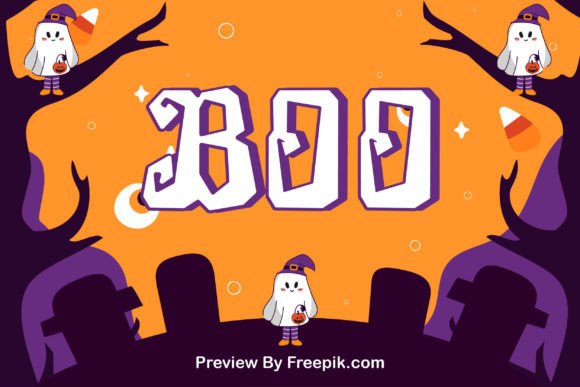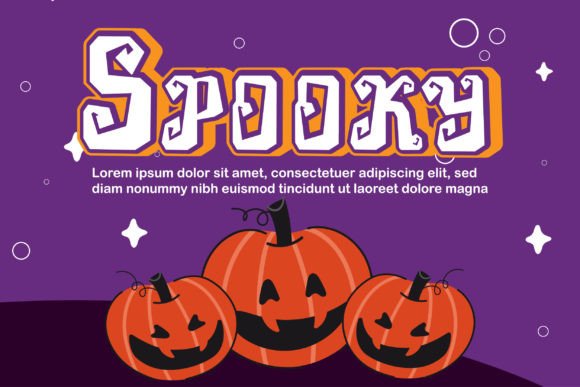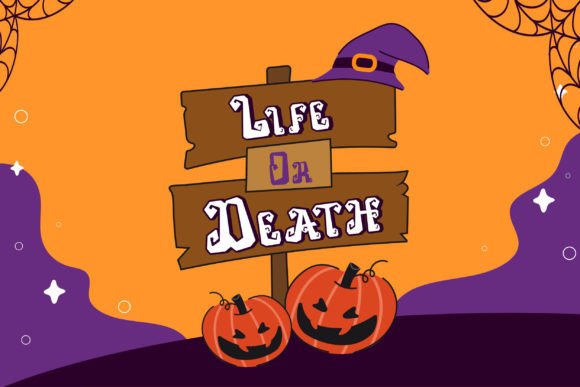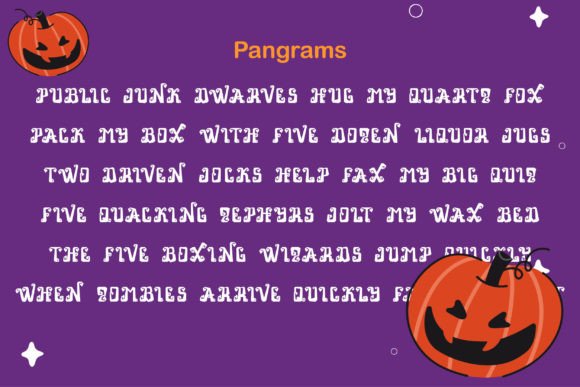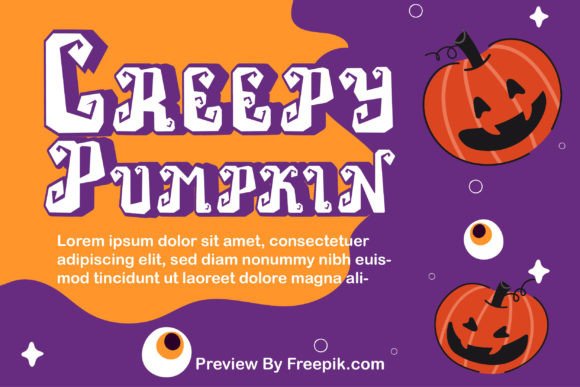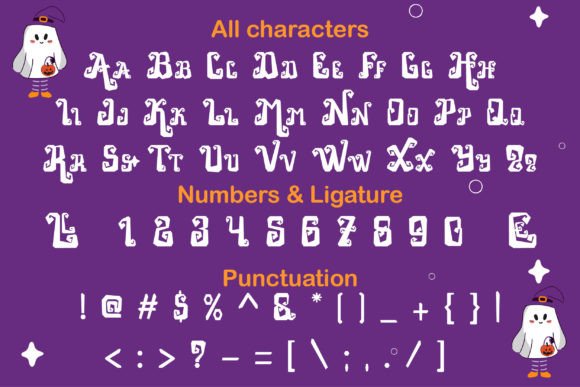
Unleash the Spookiness: Exploring the Halloween Font
Halloween is just around the corner, and with it comes the excitement of creating spooky and fun designs for various projects. Whether you’re a designer, crafter, or simply a Halloween enthusiast, having the right font can make all the difference in bringing your ideas to life. This is where the Halloween Font comes in – a unique display font that embodies the scary and cute decorative theme of Halloween.
What is the Halloween Font?
The Halloween Font, also known as Halloween Spooky, is a fresh and unique typeface designed specifically for Halloween-themed design purposes. Its distinctive style combines scary and cute elements, making it perfect for a wide range of projects, including t-shirts, books, posters, and more. This font is sure to add a touch of spookiness and playfulness to your designs, setting them apart from the rest.
Key Features of the Halloween Font
- Unique Display Font: The Halloween Font is a display font, meaning it’s designed to grab attention and make a statement. Its bold and quirky style is perfect for headlines, titles, and short phrases.
- Scary and Cute Theme: This font seamlessly blends scary and cute elements, making it ideal for Halloween designs that require a balance of spookiness and playfulness.
- Versatile: The Halloween Font can be used for various design purposes, including t-shirts, books, posters, stickers, and more.
- Easy to Read: Despite its unique and decorative style, the Halloween Font remains easy to read, making it perfect for designs that require a clear message.
Uses of the Halloween Font
The Halloween Font is incredibly versatile, and its uses are endless. Here are some ideas to get you started:
- T-Shirts and Apparel: Create eye-catching Halloween-themed t-shirts, hoodies, and other apparel with this unique font.
- Posters and Flyers: Design spooky and fun posters and flyers for Halloween events, parties, or haunted houses.
- Books and Magazines: Use the Halloween Font to create engaging and spooky book covers, magazine titles, or article headers.
- Stickers and Decals: Design Halloween-themed stickers and decals for laptops, water bottles, or any other surface.
Tips for Using the Halloween Font
To get the most out of the Halloween Font, follow these tips:
- Keep it Simple: Use short phrases or words to make the most of this display font.
- Experiment with Colors: Try pairing the Halloween Font with different colors to create a unique and eye-catching design.
- Mix and Match: Combine the Halloween Font with other fonts to create a contrasting and visually appealing design.
The Halloween Font is a unique and versatile typeface that’s perfect for designers, crafters, and Halloween enthusiasts. Its scary and cute theme, combined with its bold and quirky style, makes it ideal for a wide range of Halloween-themed design projects. Whether you’re creating t-shirts, posters, or stickers, this font is sure to add a touch of spookiness and playfulness to your designs. So, unleash your creativity and get ready to make some spooky magic with the Halloween Font!